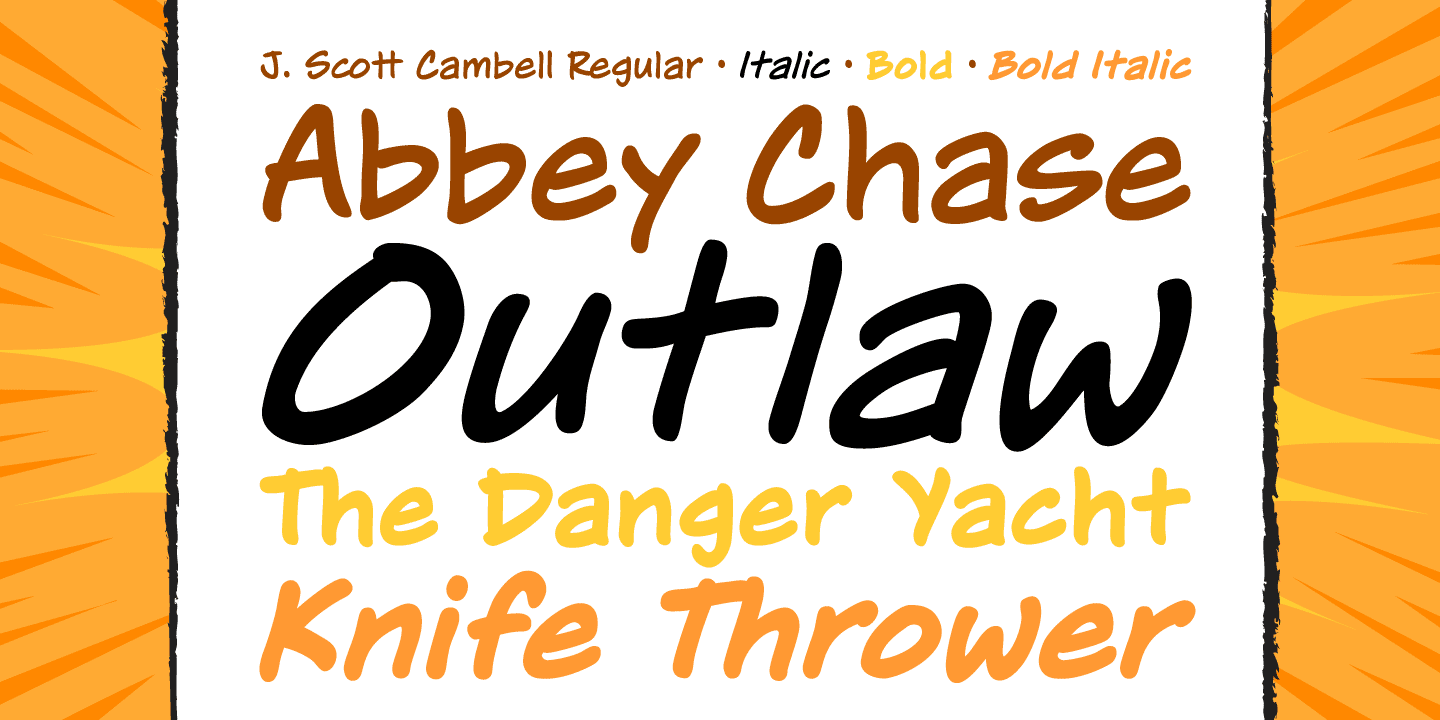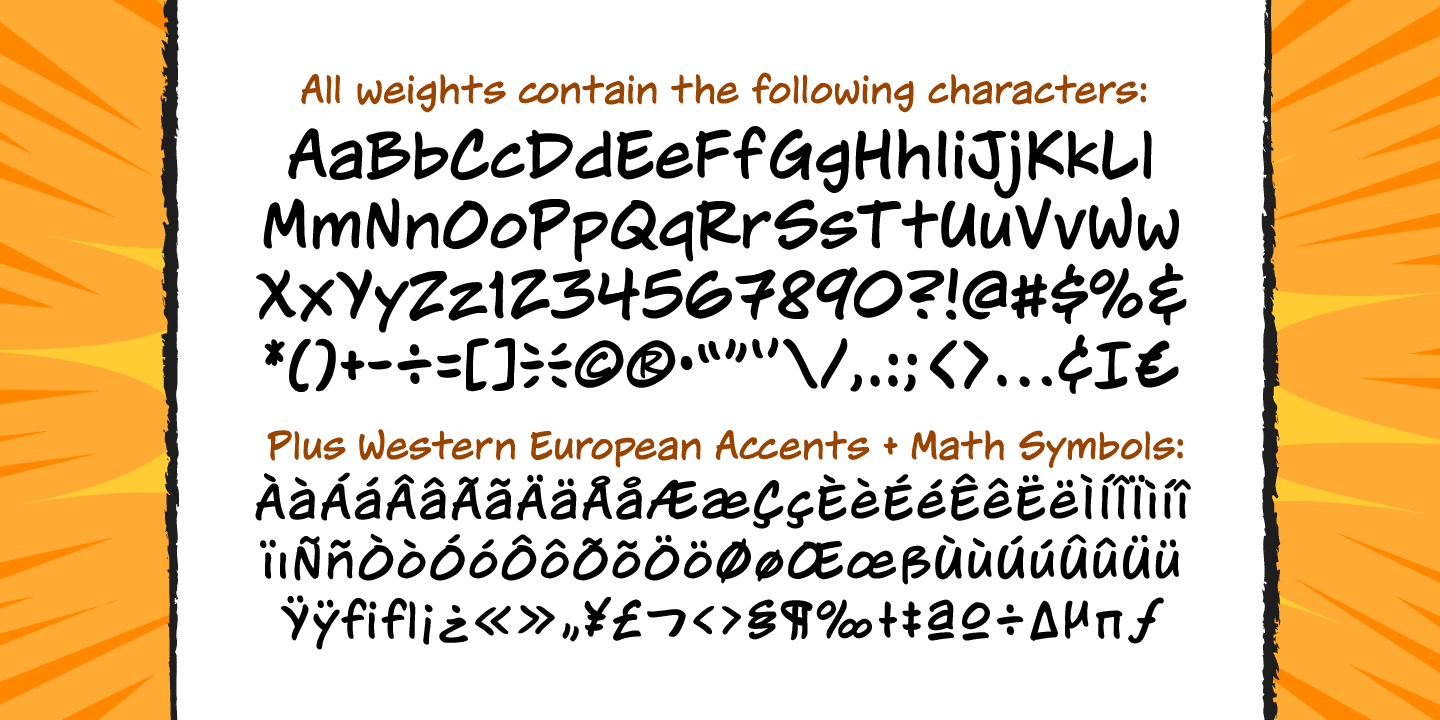
J Scott Campbell Lower
Font Family by Comicraft Fonts
J Scott Campbell Lower is a lively handwritten display family from Comicraft Fonts with a comic-inspired feel. Its bold, rounded forms and thick strokes give it an energetic, friendly voice, while the casual, hand-drawn styling keeps the overall look loose, modern, and playful.
With 4 styles included—Regular, Italic, Bold, and Bold Italic—it gives you room to build expressive typographic contrast without losing its informal character. This is a strong fit for comic work, fun branding, posters, social graphics, apparel, and other display settings where you want lettering that feels dynamic and approachable.